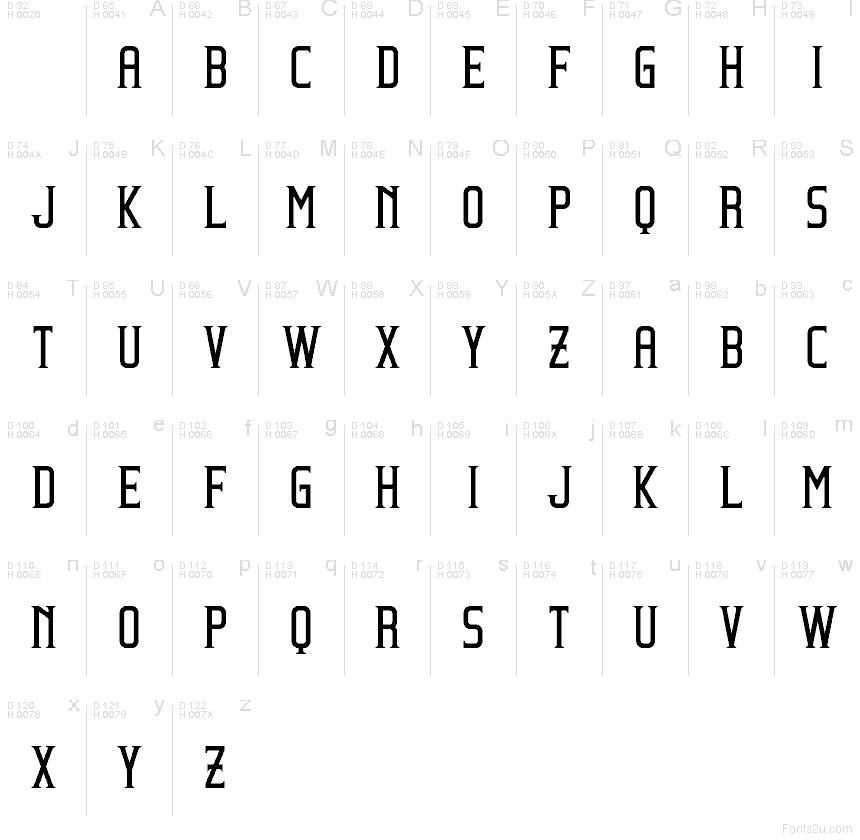
Beholder Book by Vladimir Nikolic is a free condensed serif display font with tall, tightly drawn letters and pronounced changes in stroke width. Small wedge-like serifs sharpen the otherwise smooth, upright forms.
Brands with a theatrical, fashion-led, or slightly mysterious direction could use it for logos, fragrance packaging, event posters, and magazine covers. Its narrow silhouette and sculpted details turn a name into a sleek emblem, especially for boutique product identities.